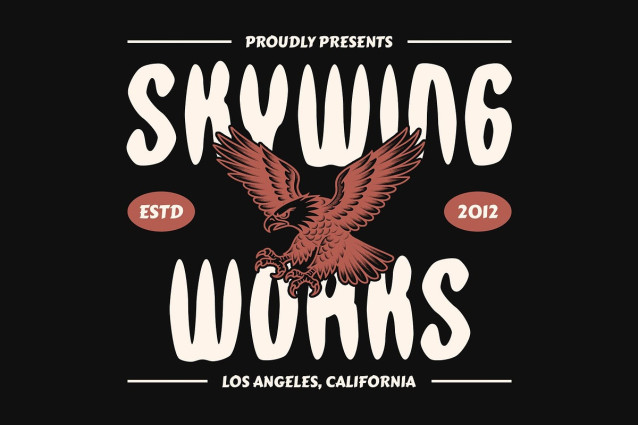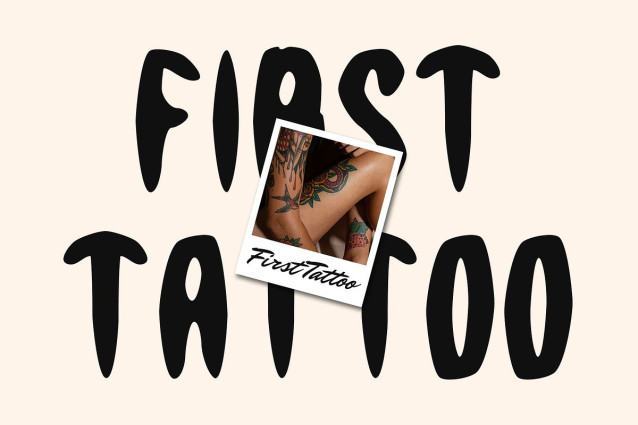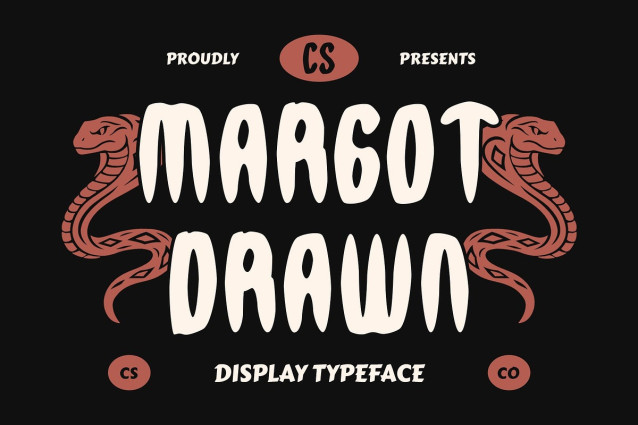
CS Margot Drawn Font
CS Margot Drawn Font is a display font that reimagines the blackletter tradition through a modern, clean lens. Its sharp angles, bold vertical strokes, and precise construction reflect contemporary design sensibilities, while the drawn-like texture adds a handcrafted, organic touch that softens its otherwise rigid structure.
Bold, Mysterious, and Creatively Expressive This typeface offers a unique balance—strong and clean, yet full of character. The drawn strokes infuse each letterform with visual richness and depth, giving it a raw, artistic quality that makes it feel both intentional and edgy. It delivers a mysterious and rebellious vibe, perfect for designs that lean into the bold and unconventional.
Made for Streetwear, Music, and Modern Gothic Design Ideal for underground music projects, streetwear branding, gothic visuals, zines, artistic posters, or alternative fashion, this contemporary heritage font helps bring a striking and distinctive identity to your work. Its modern-meets-handmade style is particularly suited for creatives who want their message to be both refined and impactful.
Where Heritage Meets the Avant-Garde This experimental font proves that blackletter can be fresh and relevant, especially when blended with a minimalist yet expressive approach. Whether you’re designing for a gritty visual aesthetic or a contemporary project with historical nuance, this font ensures your typography speaks boldly and memorably.